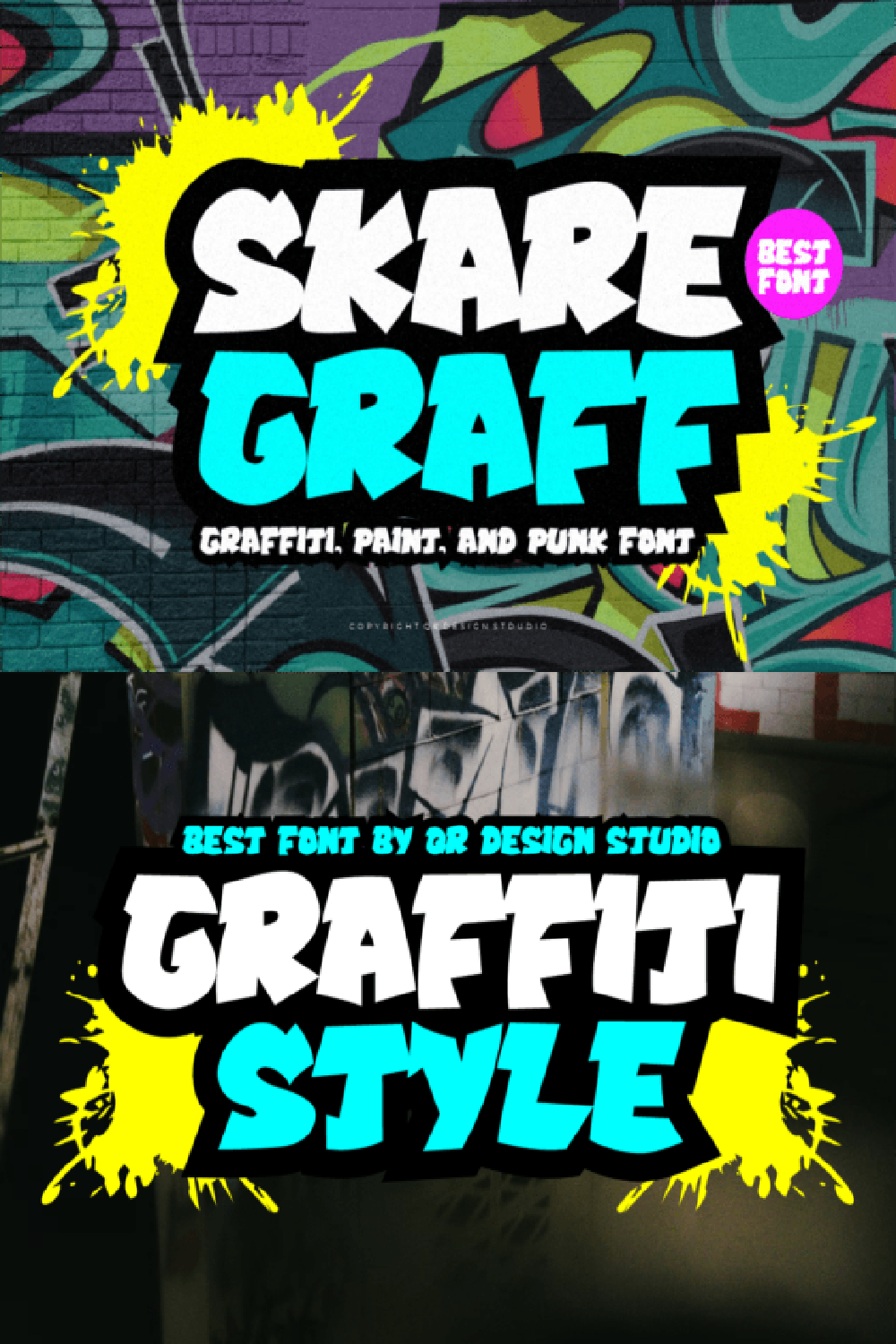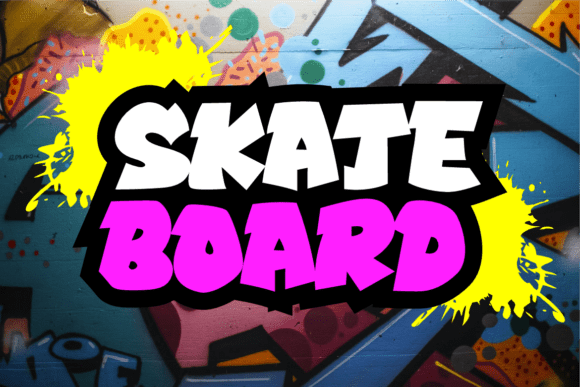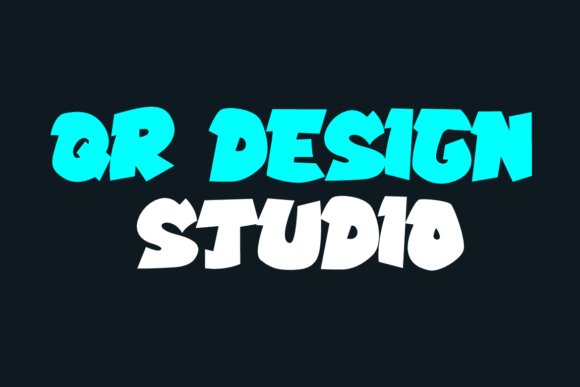
Skare Graff Font: Bold Graffiti Typography for Unique Poster Designs
About the Skare Graff Font
Step up your design game with Skare Graff Font, a font that exudes confidence and style. Bring street energy to your designs with
Skare Graff
, a bold and edgy graffiti-style font that screams attitude. Inspired by urban murals, punk culture, and spray-paint art, this font adds explosive character to posters, music covers, skatewear, YouTube thumbnails, and anything that dares to stand out. With sharp angles and vibrant flair, Skare Graff is made for rebellious creatives.
Skare Graff Font Usage Examples